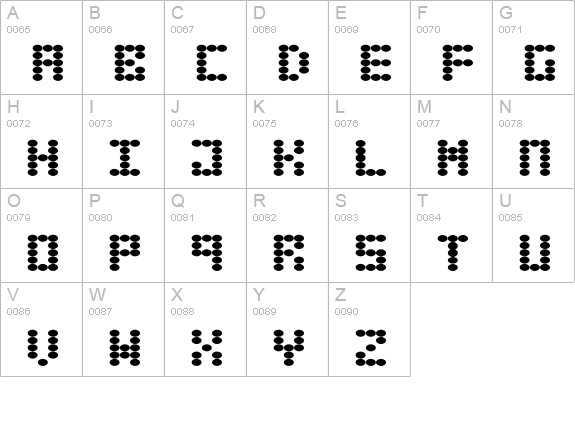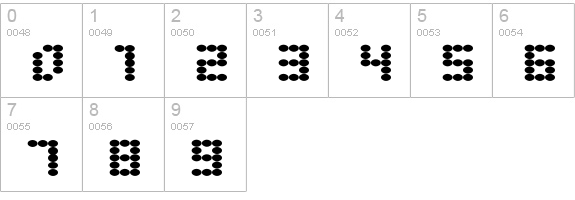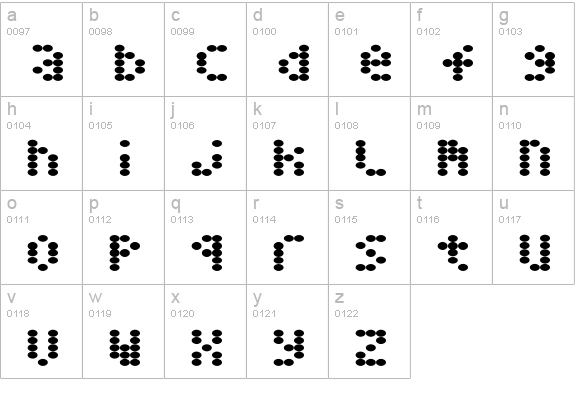
Greaseballs Font Details
Greaseballs font is a funky and energetic typeface that exudes a retro vibe with its bold and playful design. Perfect for adding a touch of nostalgia to your projects, this font is sure to catch attention and make a statement. Its quirky charm and vintage feel make it ideal for various creative endeavors, from posters and flyers to branding and packaging. What's even better is that Greaseballs font is available for free download at FontsMarket.com, allowing you to easily incorporate its unique style into your designs without any cost. So why wait? Download this eye-catching font today and let your creativity shine!